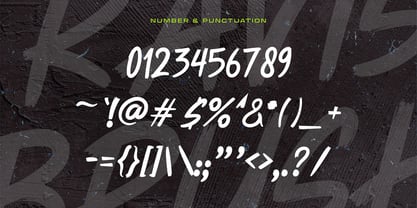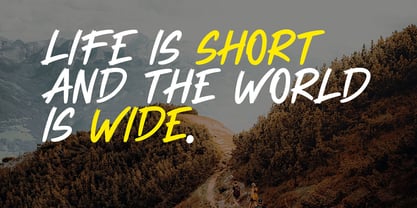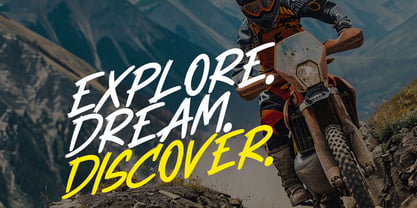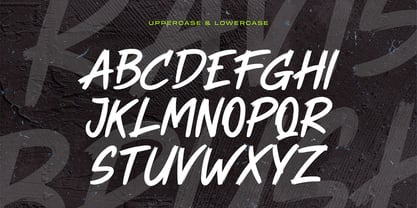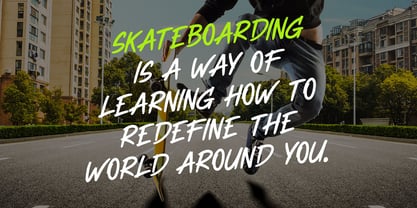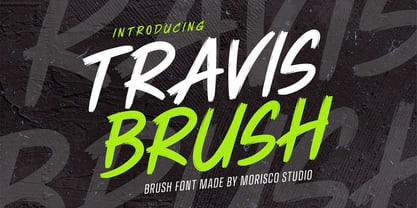
Travis Brush
por Morisco Studio
La familia tipográfica Travis Brush fue diseñada por Fathur Rahman y publicada por Morisco Studio. Travis Brush contiene 1 estilos. Más información sobre esta familia
Travis Brush Font is a Brush Handwritten font with a unique character designed by Morisco Studio. This typeface is well-suited for headlines and any project, like branding, print templates, logos, and more.
Features:
* Uppercase & Lowercase
* Symbols & Punctuation